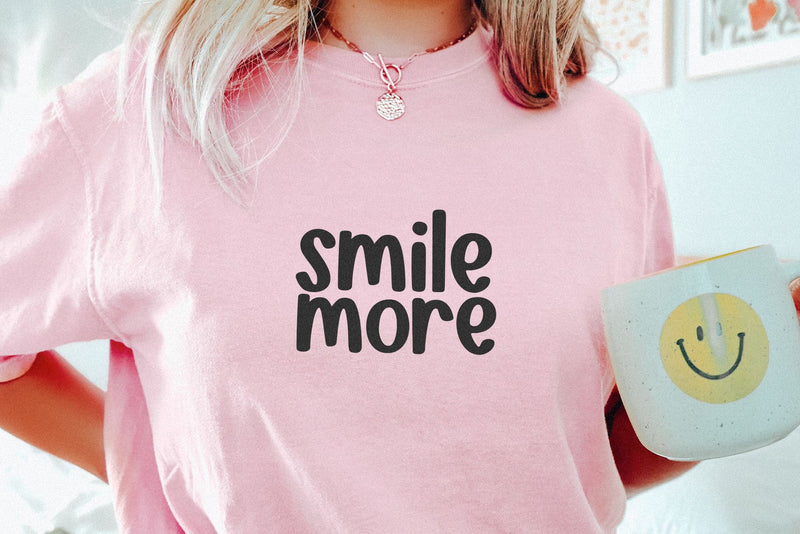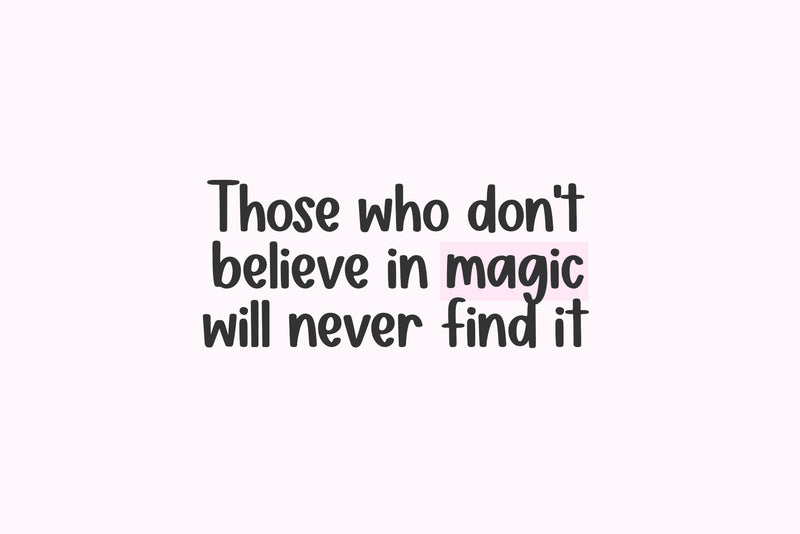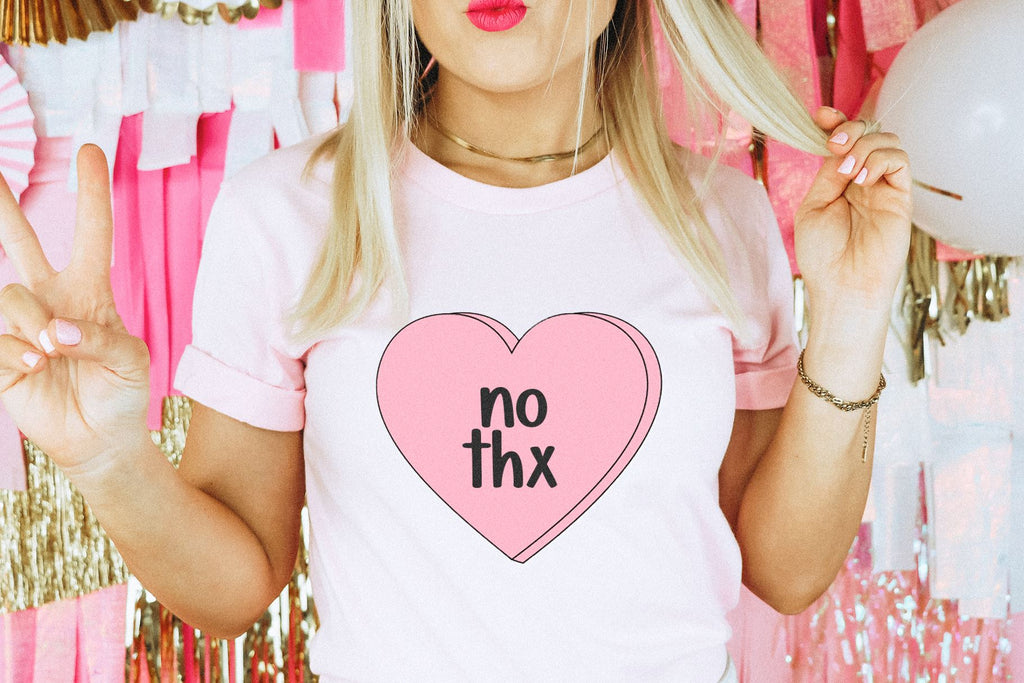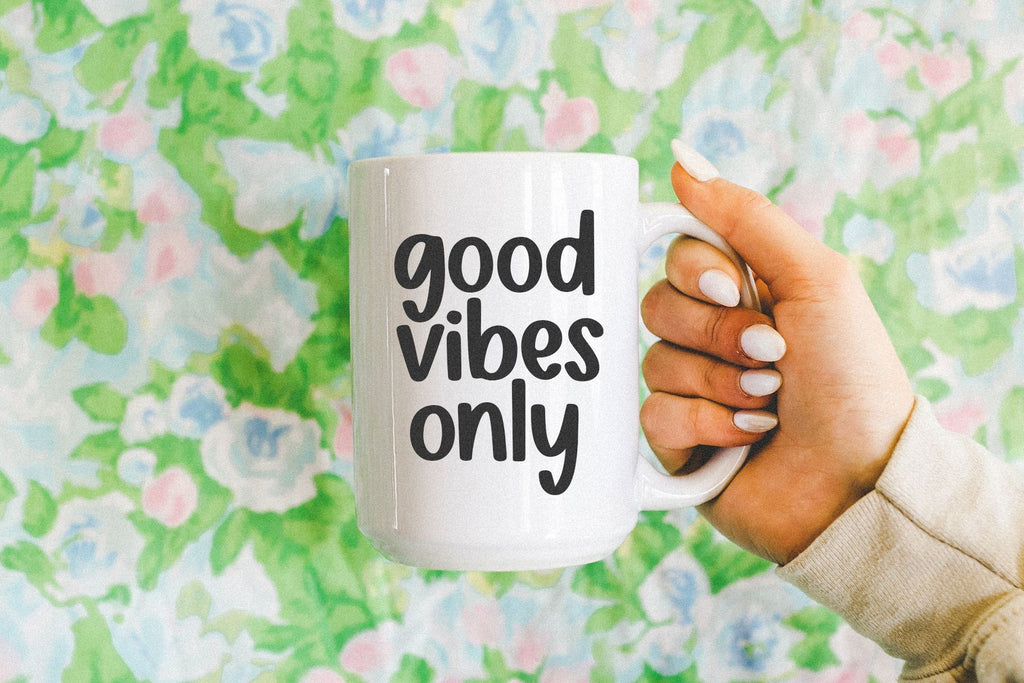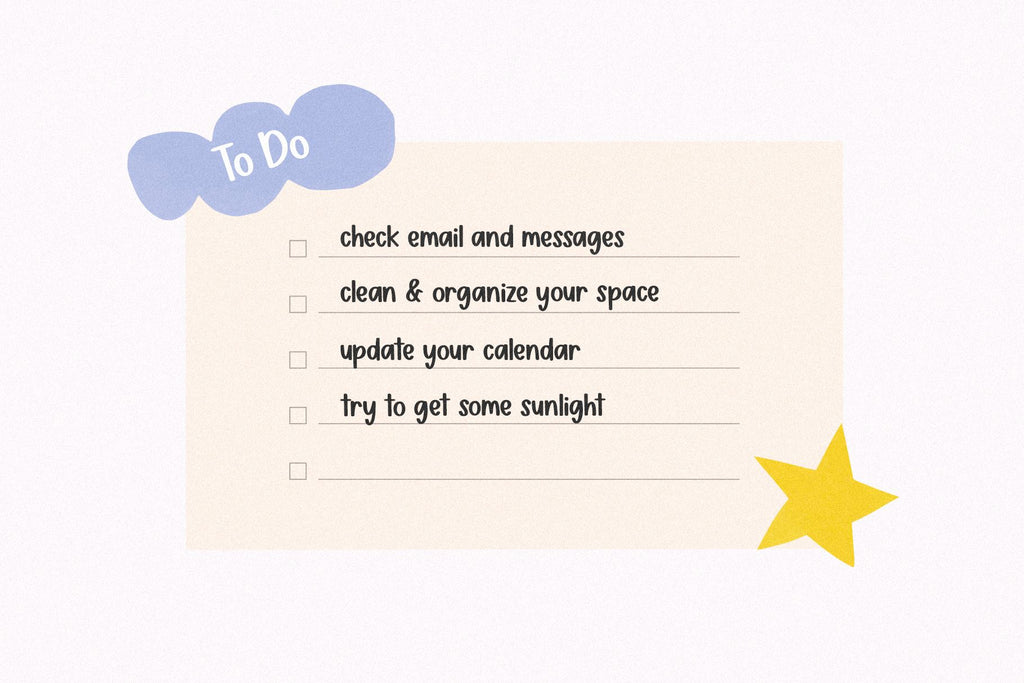
Lovekind Cute Handwritten Font So Fontsy Product description lovekind is a cute handwriting font. this font is perfect for cricut projects, quotes, goodnotes, planners, handwritten notes, logos, teachers and more! otf ttf thank you!. Download lovekind cute handwriting font (2543928) instantly now! trusted by millions easy to use font files full support.
Lovekind Cute Handwritten Font So Fontsy This font bundle is perfect for planners, goodnotes, handwritten notes, cricut projects, stickers, svg designs, logos, shirts, mugs, keychains, procreate designs and more!. Lovekind is a cute handwritten font. this font is perfect for your digital planner, goodnotes, crafts, logos, teachers, handwritten notes, social media quotes and more!. Lovekind font a cute handwriting font includes otf and ttf formats only lovekind is perfect for: cricut projects, svg files, goodnotes, planners, handwritten notes, logos, stickers and more! commercial use for this font is allowed → unlimited projects → unlimited sales → no credit required *not permitted*. Lovekind is a cute handwriting font. this font is perfect for cricut projects, quotes, goodnotes, planners, handwritten notes, logos, teachers and more! otf ttf thank you! so fontsy | craft svgs & fonts.
Lovekind Cute Handwritten Font So Fontsy Lovekind font a cute handwriting font includes otf and ttf formats only lovekind is perfect for: cricut projects, svg files, goodnotes, planners, handwritten notes, logos, stickers and more! commercial use for this font is allowed → unlimited projects → unlimited sales → no credit required *not permitted*. Lovekind is a cute handwriting font. this font is perfect for cricut projects, quotes, goodnotes, planners, handwritten notes, logos, teachers and more! otf ttf thank you! so fontsy | craft svgs & fonts. Looking for cute handwriting fonts? click to find the best 3,553 free fonts in the cute handwriting style. every font is free to download!. Unleash your creative side with our range of free cute, handwriting fonts. perfect for personalizing your digital projects!. Download so cute handwritten.otf note of the author by installing this font, you agree to the product usage agreement: 1. the following fonts are only used personal use, without commercial, not permitted. 2. if you need a promotion or commercial font use license, please contact me at the support contact typetemp01@gmail typetemp. studio. Introducing gorgeous girl, our cute handwritten script font for cricut & more, perfect for all your creative projects! whether you're a cricut enthusiast or simply looking for a charming cursive font, this handwriting font brings a delightful touch to invitations, greeting cards, and personalized crafts. our script font is compatible with cricut svgs, goodnotes, procreate, and many other.